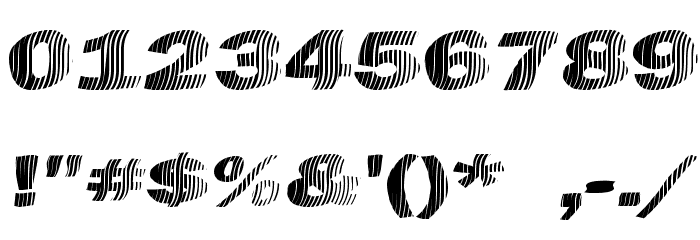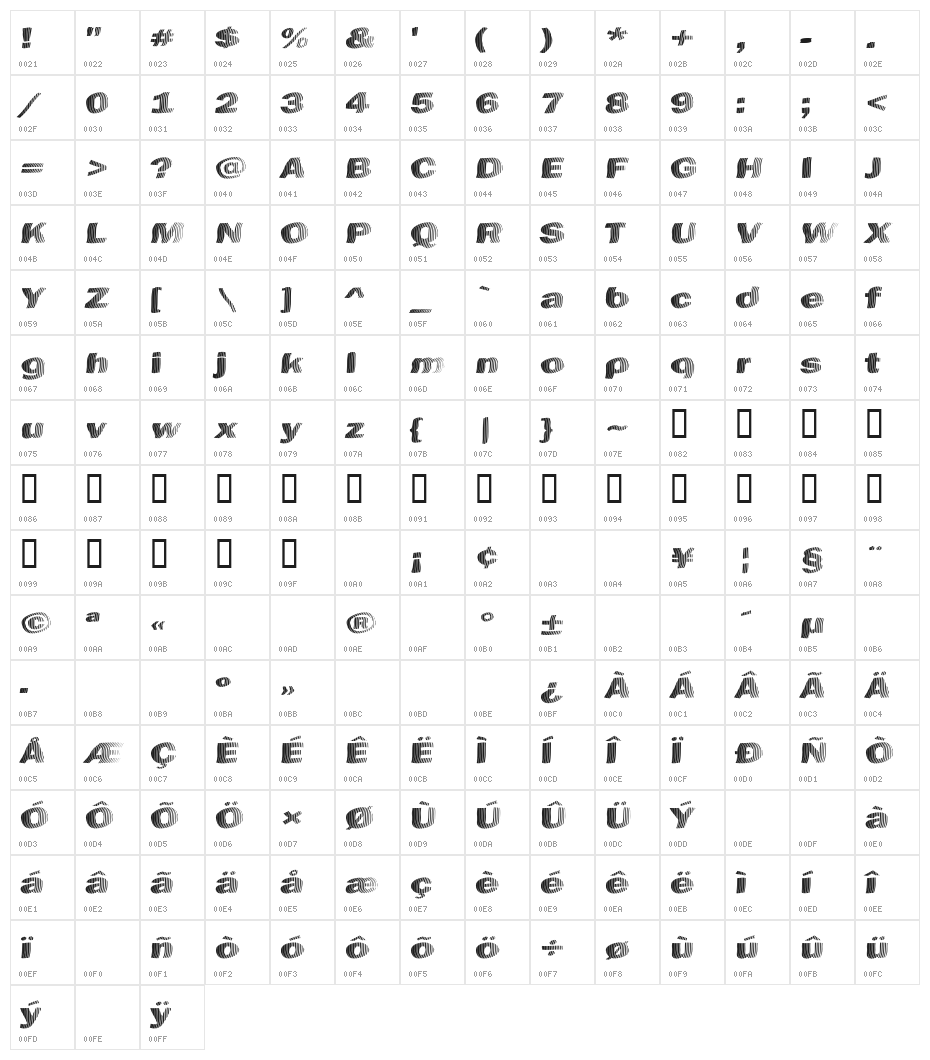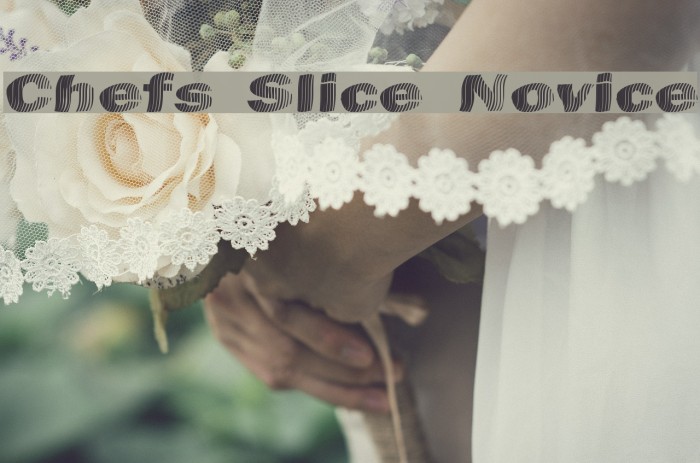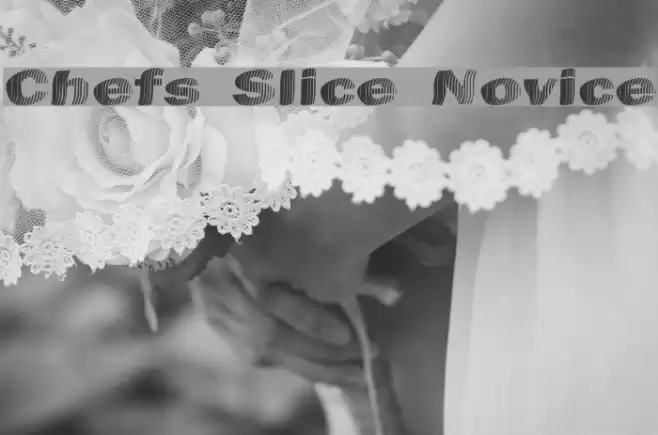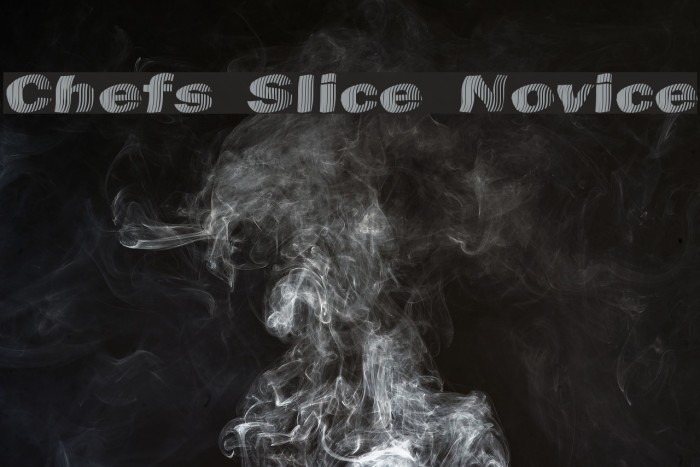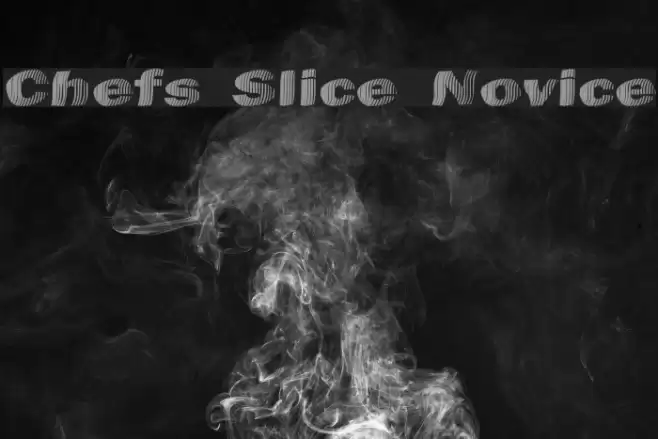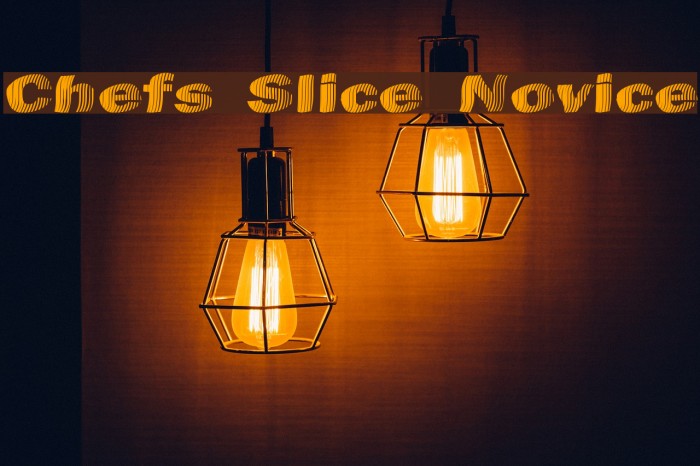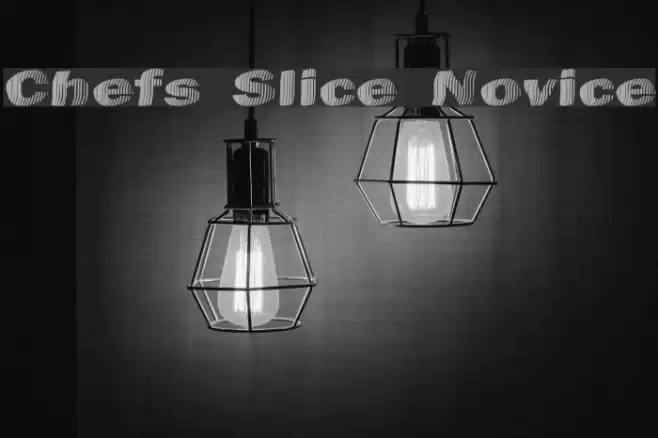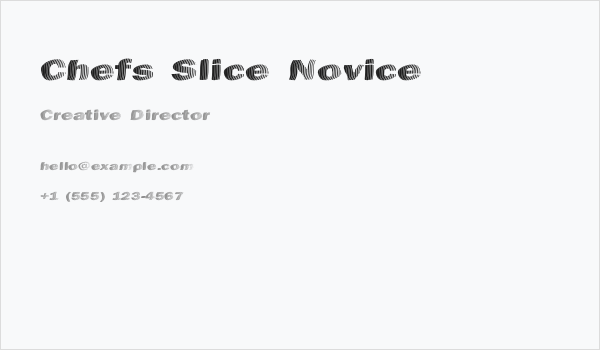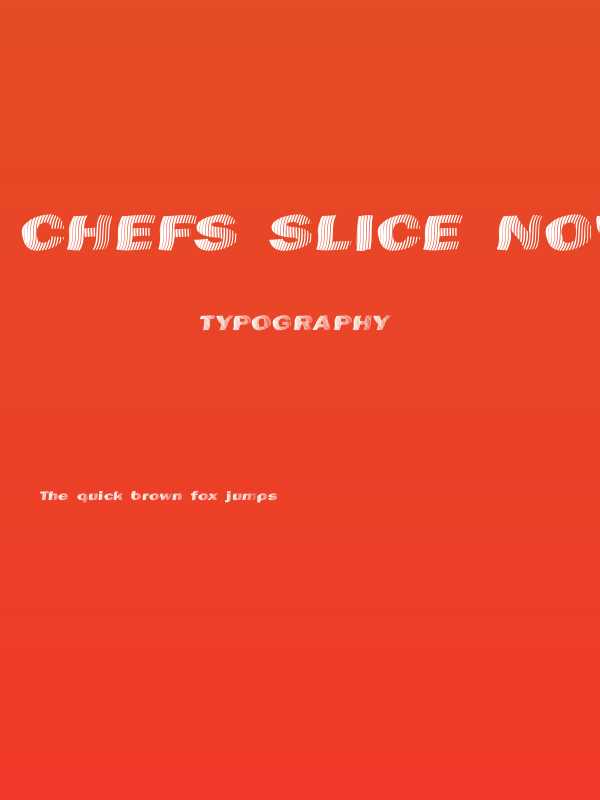
Chefs Slice Novice Font
Chefs Slice Novice Description
This font features a unique, striped pattern that gives each character a dynamic and textured appearance. The letters are bold and have a distinct slant, creating a sense of movement and energy. The design incorporates a modern twist on traditional letterforms, with each character appearing as if it has been sliced into thin, parallel lines. This creates a visually striking effect that is both contemporary and artistic. The font maintains readability while offering a decorative flair, making it suitable for eye-catching headlines and creative projects.
| Proposed Projects | Ideal for modern branding, poster design, and artistic projects requiring a bold statement. |